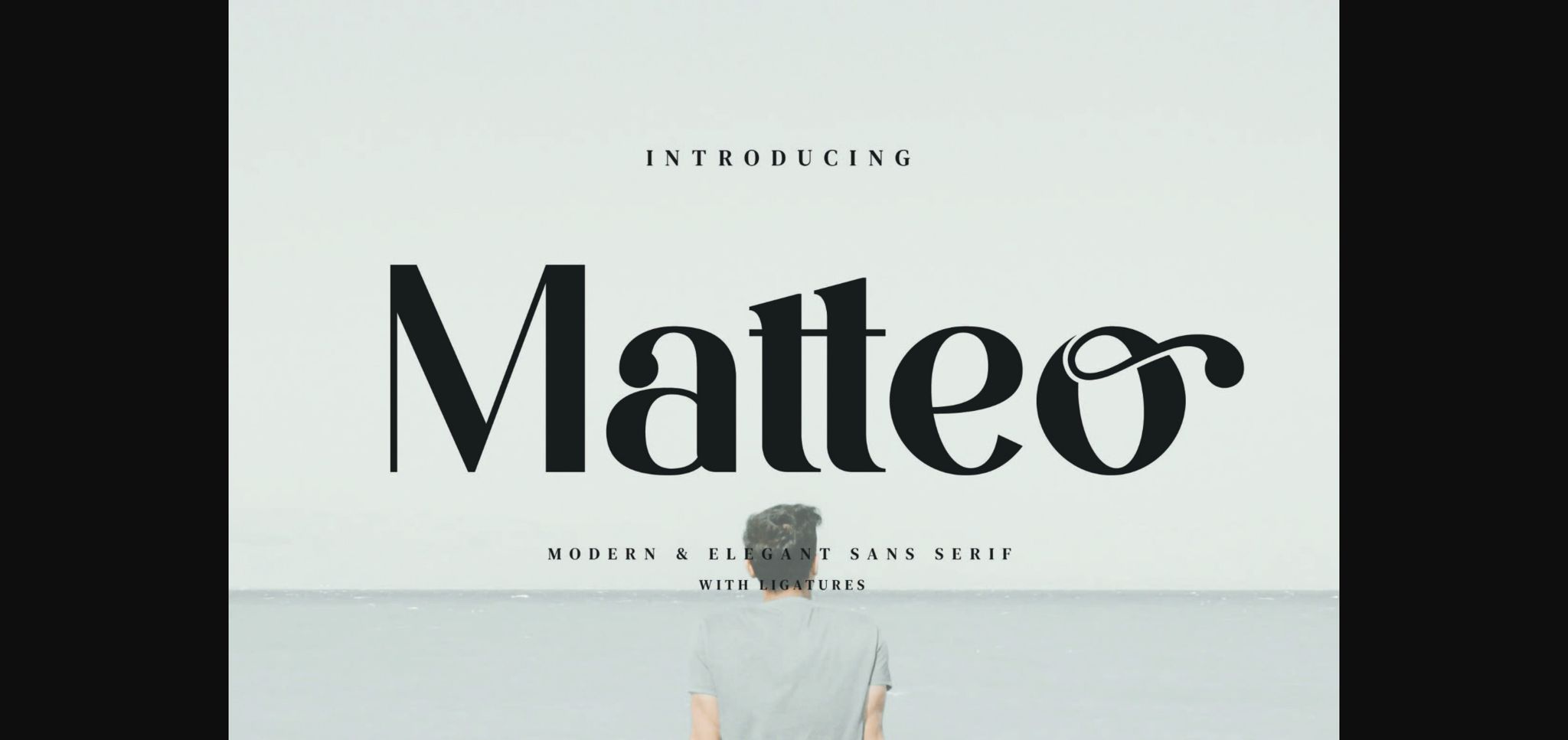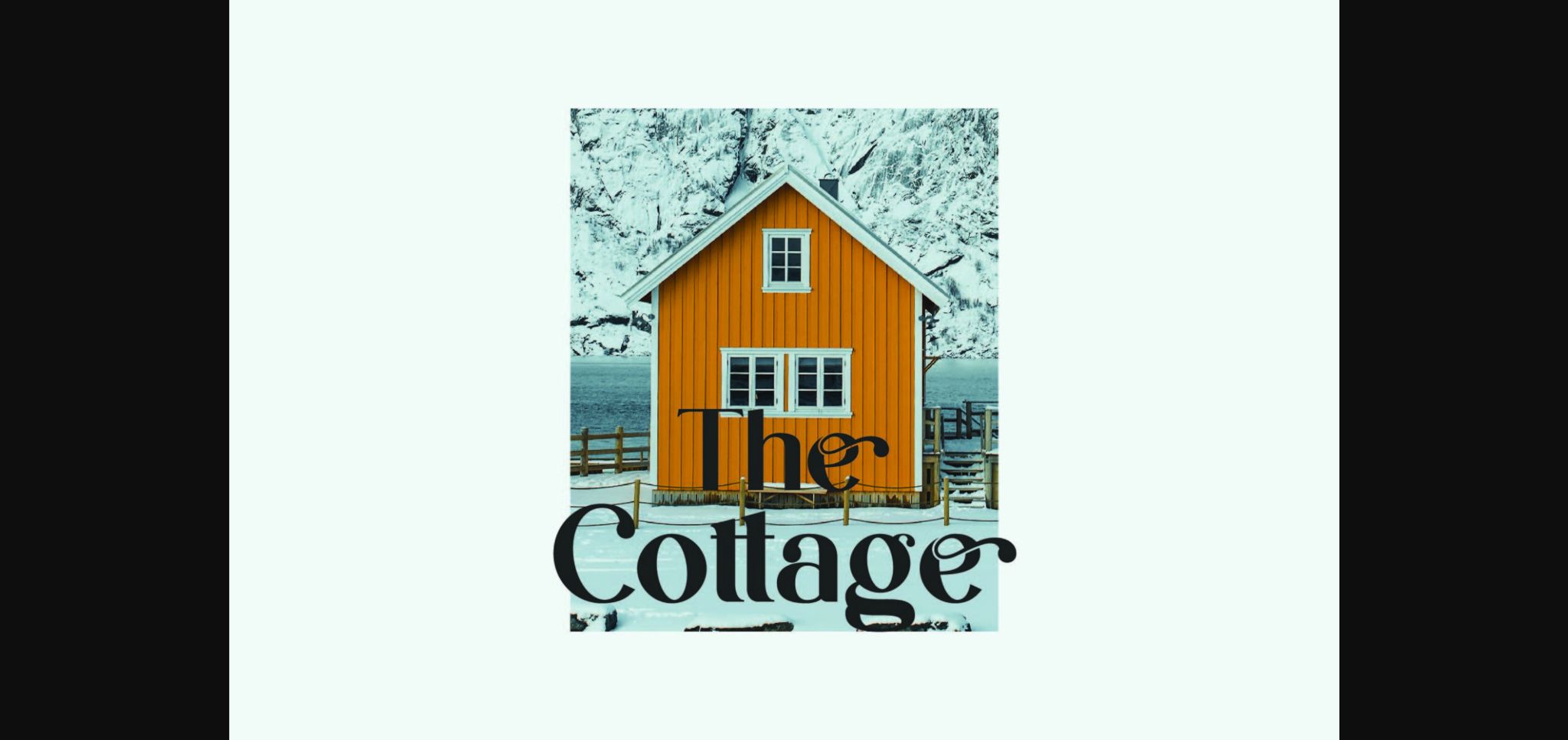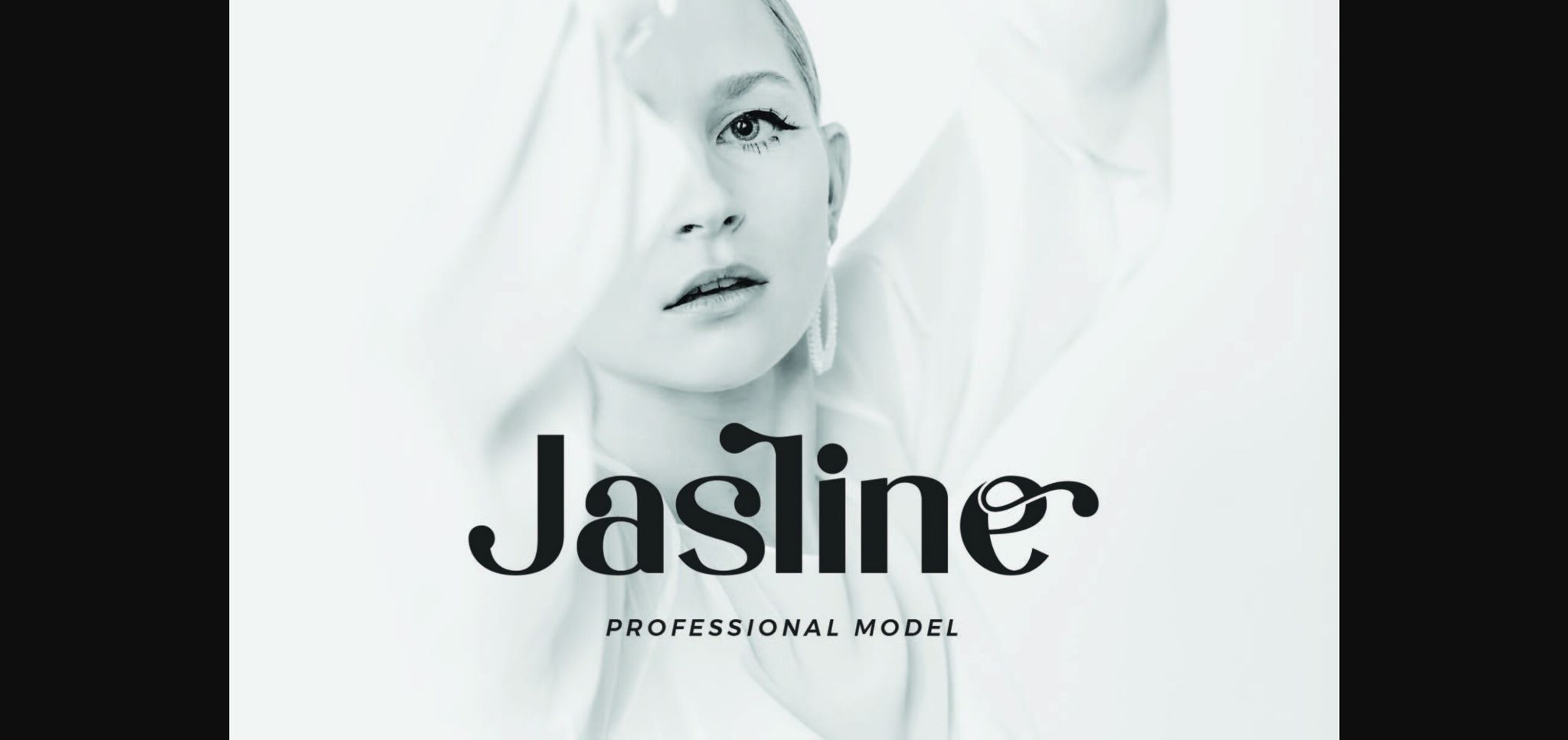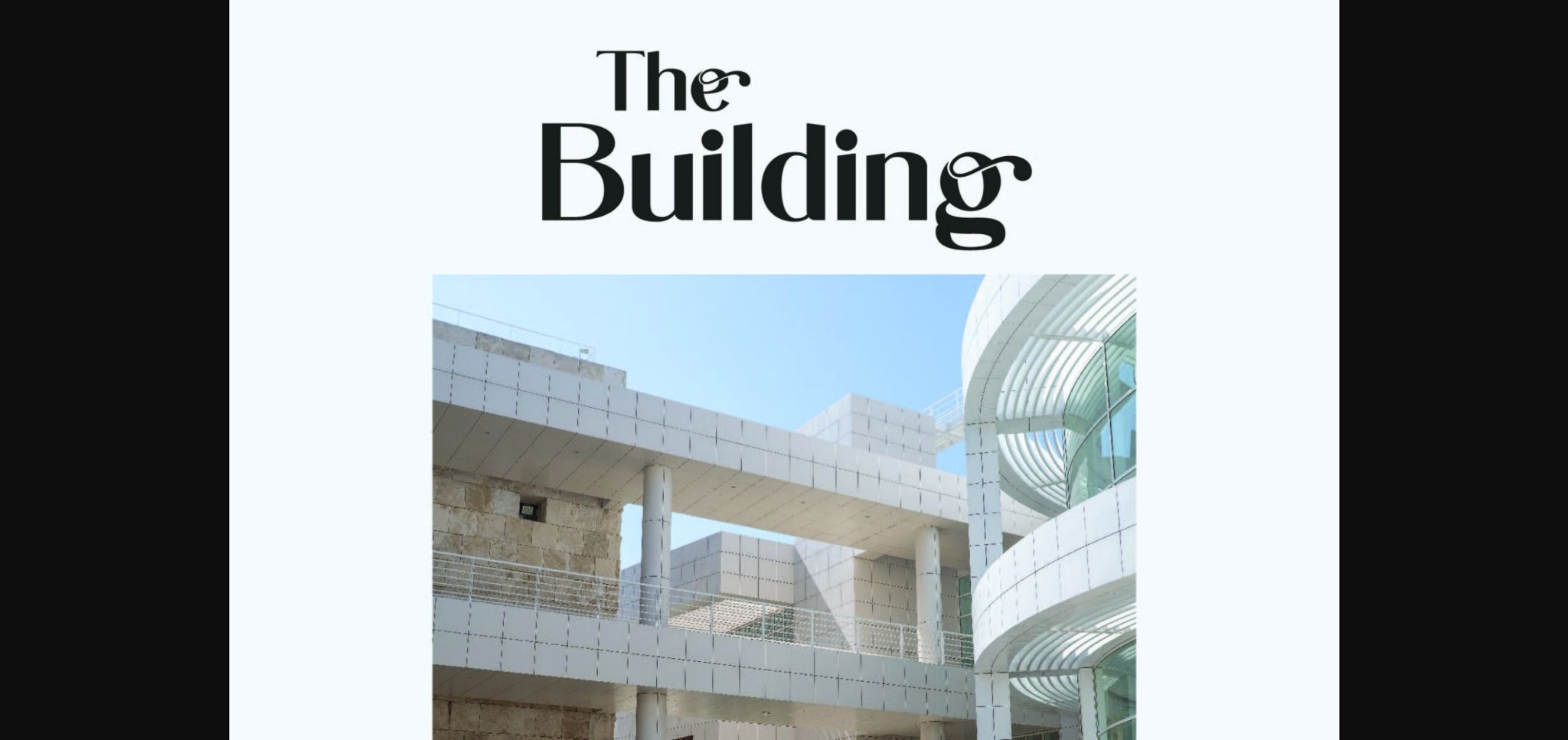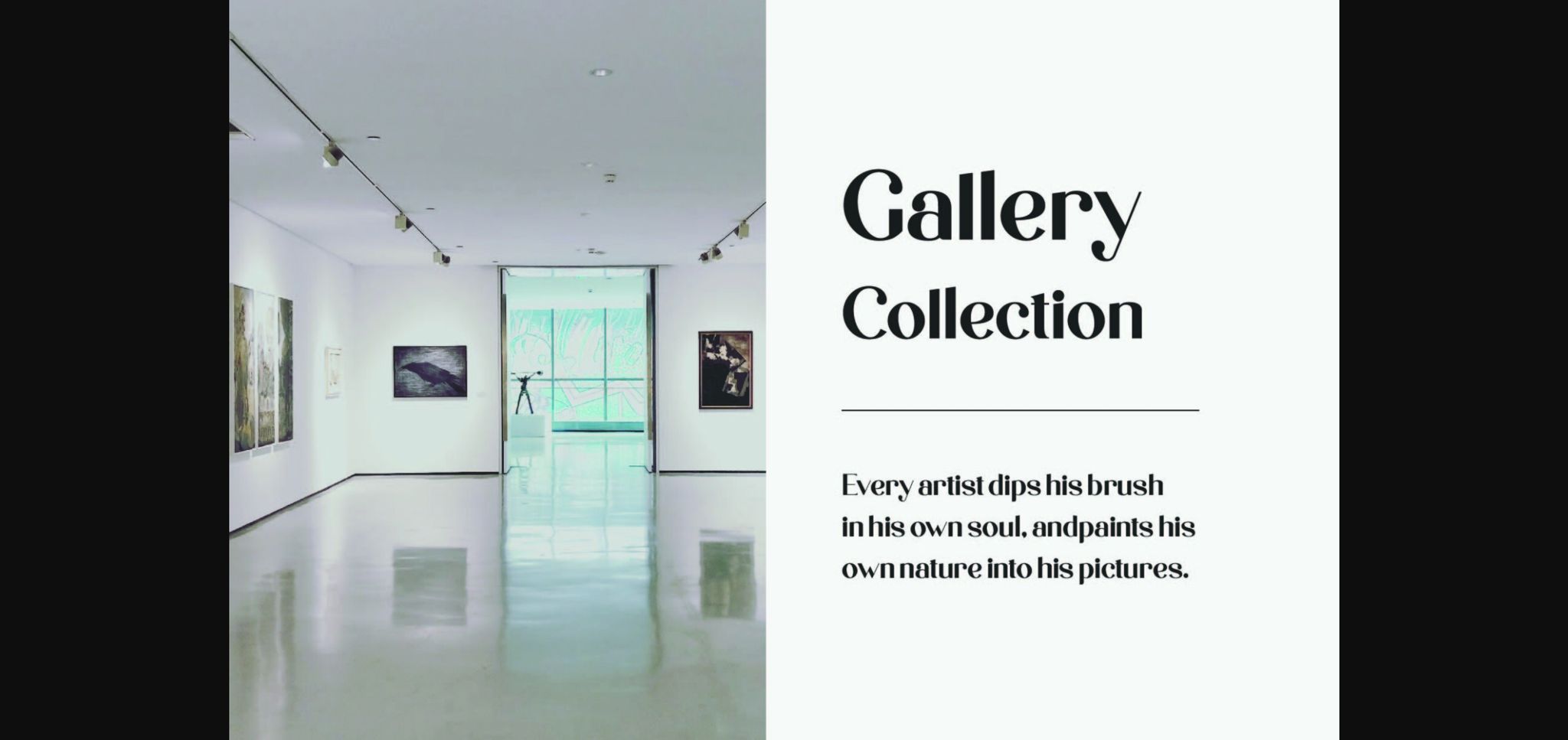
About Matteo Font
Matteo Sans Font Typeface inspired by the famous minimalist logo perfect for the purposes of designing templates, brochures, videos, advertising branding, logos, invitation, layout design, elegant crafting, beauty design and others.